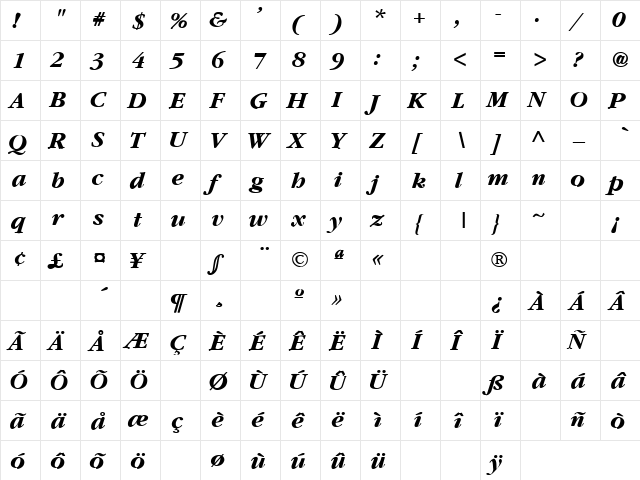
Sight For Sore Eyes 2 Regular
Design Context for Sight For Sore Eyes 2 Typeface
Sight For Sore Eyes 2 takes a measured approach to typography — its balanced proportions and neutral character make it a reliable workhorse for both digital and print work.